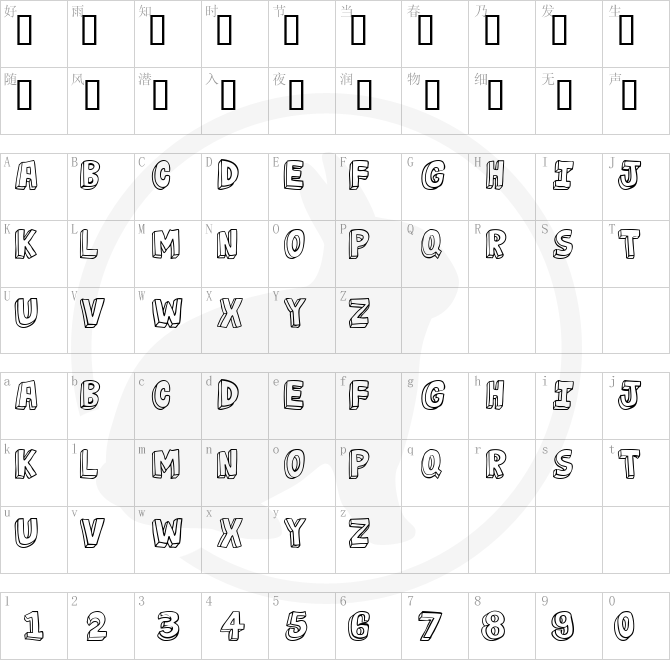
- Font Name:jabjai
jabjai-Light.ttf is a very beautiful artistic font, jabjai-Light.ttf is widely used in the design and printing of various books and pictures,jabjai-Light.ttf has a strong visual impact,jabjai-Light.ttf is a commonly used font in newspapers, magazines and books, and is used in posters, e-commerce Poster design, store design, logo design, font design and other fields.jabjai-Light.